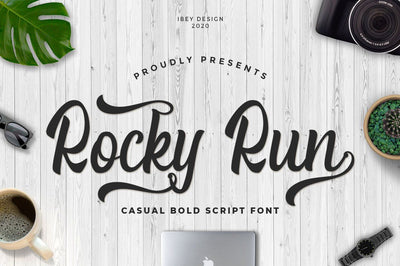
Rocky Run - Bold Script font
Rocky Run Bold Script font is an elegant and flowing handwritten font. It features a varying baseline, smooth lines, gorgeous glyphs and stunning alternates. It maintains its classy calligraphic influences while feeling contemporary and fresh. Fall in love with this font and bring your projects to the highest levels!